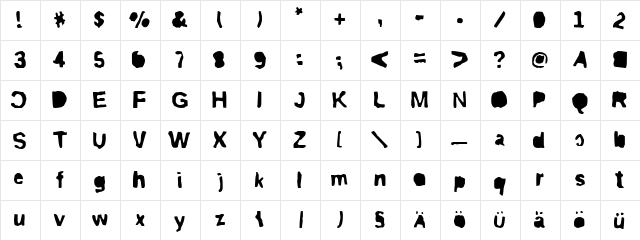
Design Context for ripTRASHround Typeface
ripTRASHround uses gentle rounded endings to create a warm, inviting typographic personality — less corporate than geometric sans, more refined than playful display fonts.
A natural fit for tech startups, health and wellness brands, children's products, and friendly consumer apps.
Font Pairing: Pairs well with a rounded or humanist sans for body copy, maintaining the friendly tone without relying on ripTRASHround to carry extended reading.
Pro Tip: Pair ripTRASHround with a geometric sans for a balanced system — the rounded softness works as a warm counterpoint to harder-edged companions.